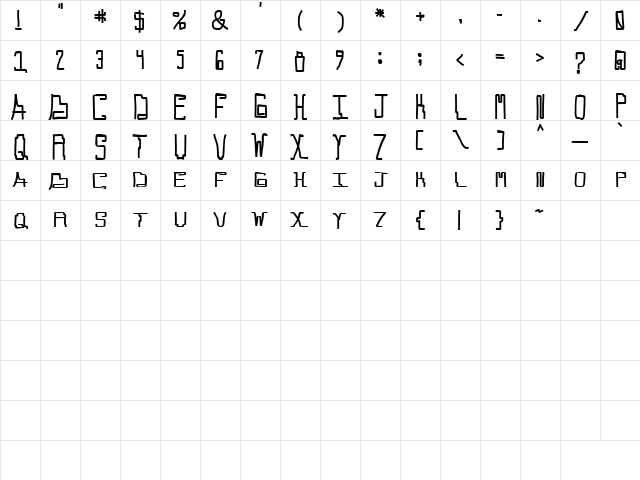
Callallied Regular
Design Context for Callallied Typeface
Callallied is a composed and adaptable typeface that performs quietly and consistently across a wide range of design contexts.